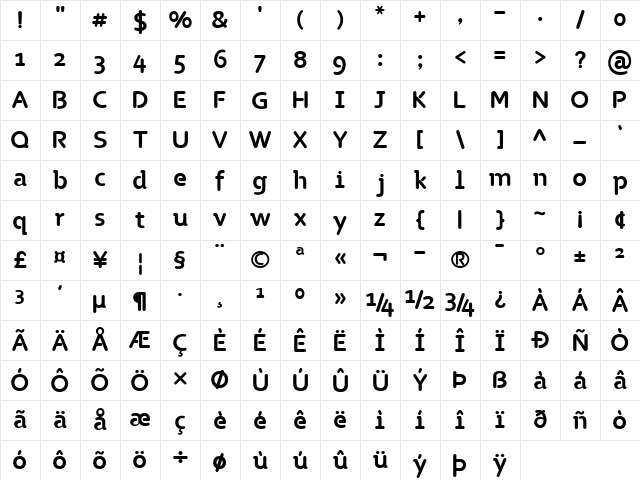
Complete TG Naonao Regular glyph index. Displaying only characters natively supported by TG Naonao Regular font.
TG Naonao is a composed and adaptable typeface that performs quietly and consistently across a wide range of design contexts.